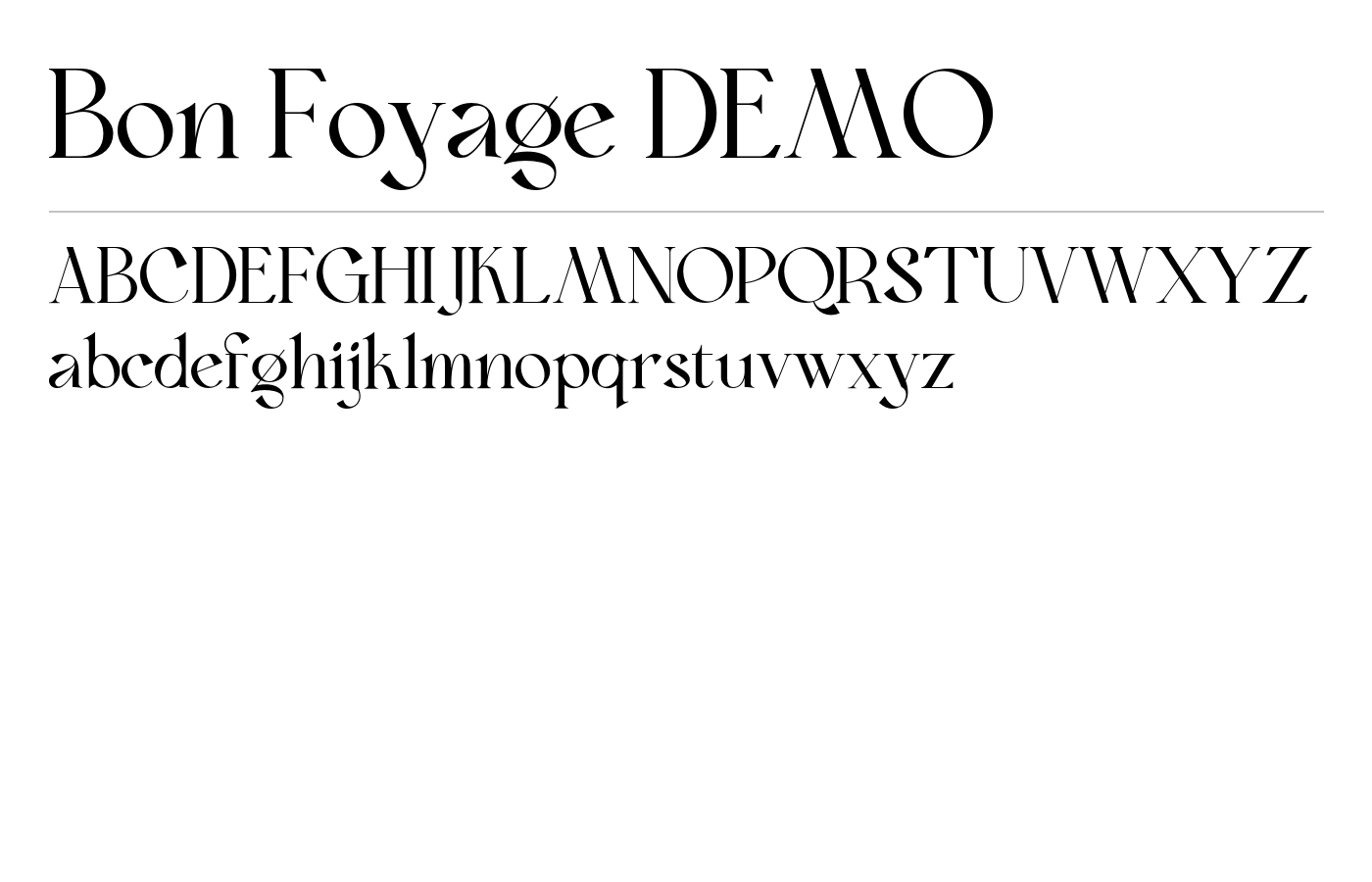
Bon Foyage DEMO is an elegant serif font that blends modern sophistication with a touch of vintage charm through its high contrast strokes and slender, delicate serifs. Its refined letterforms with unique, artistic details make it ideal for luxury branding, fashion, and editorial headlines where a stylish and polished look is desired. This font works beautifully in designs aiming to convey creativity and elegance with a distinct, graceful personality.
Bon Foyage DEMO Font
About Bon Foyage DEMO Font